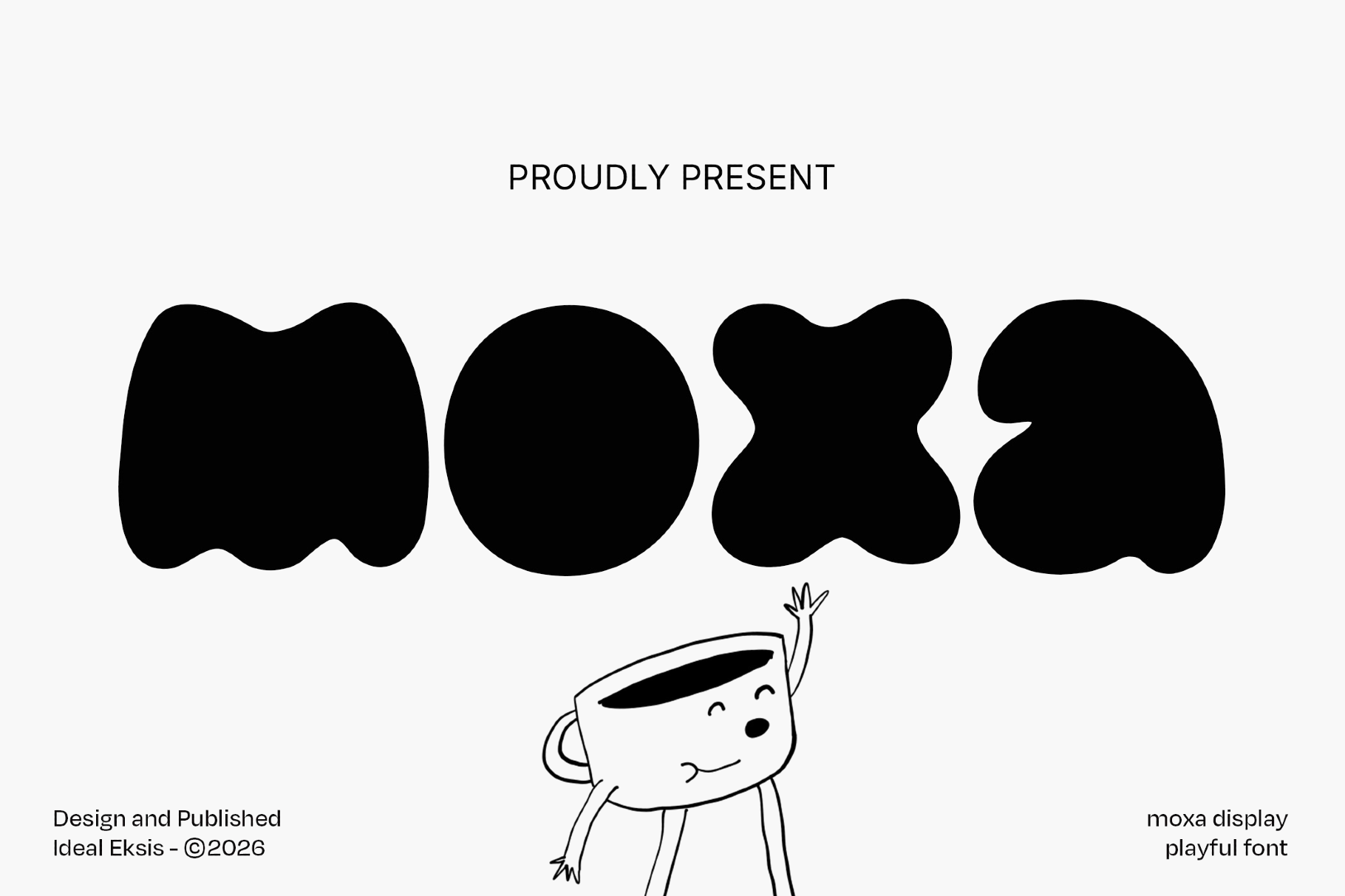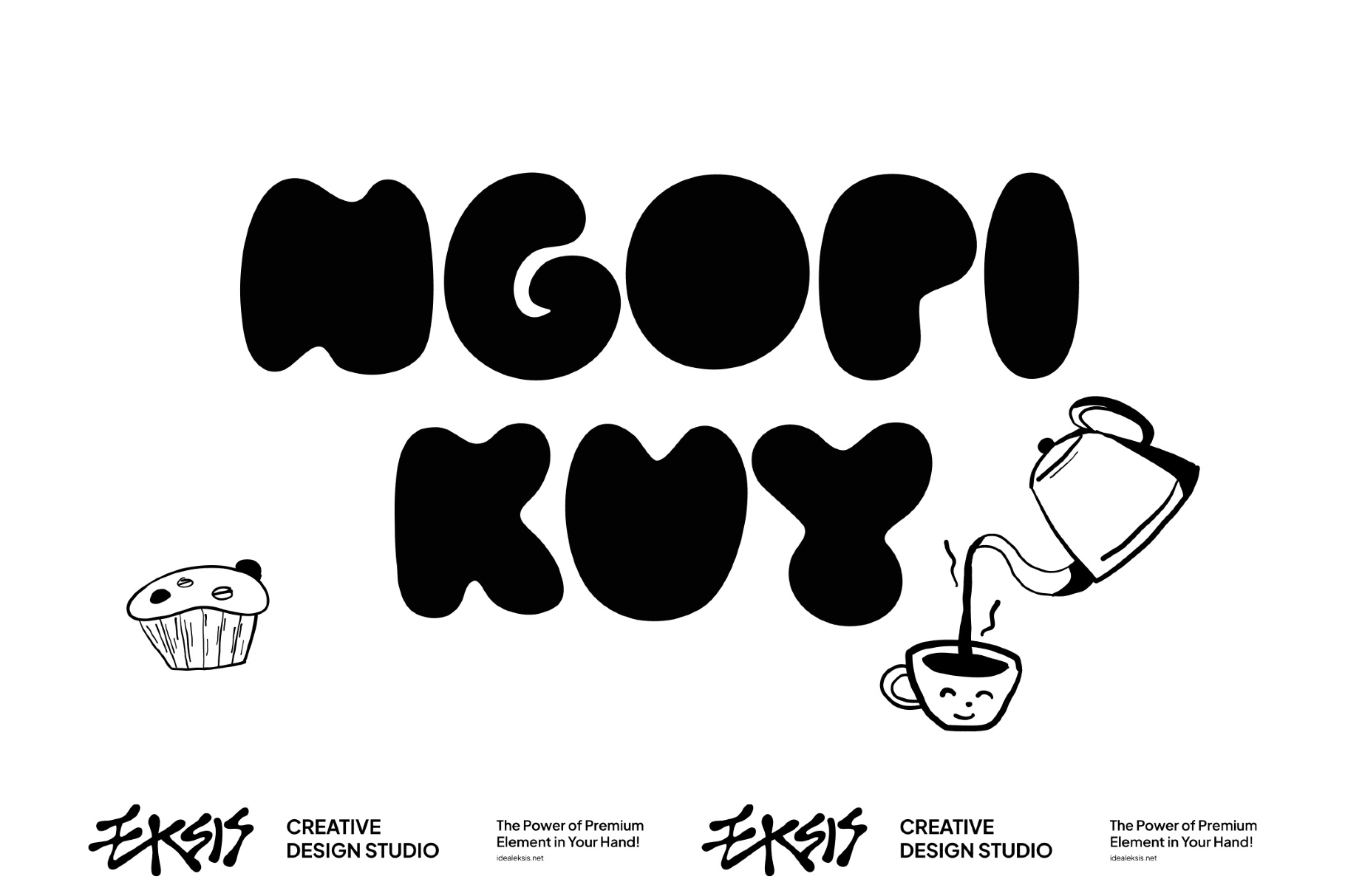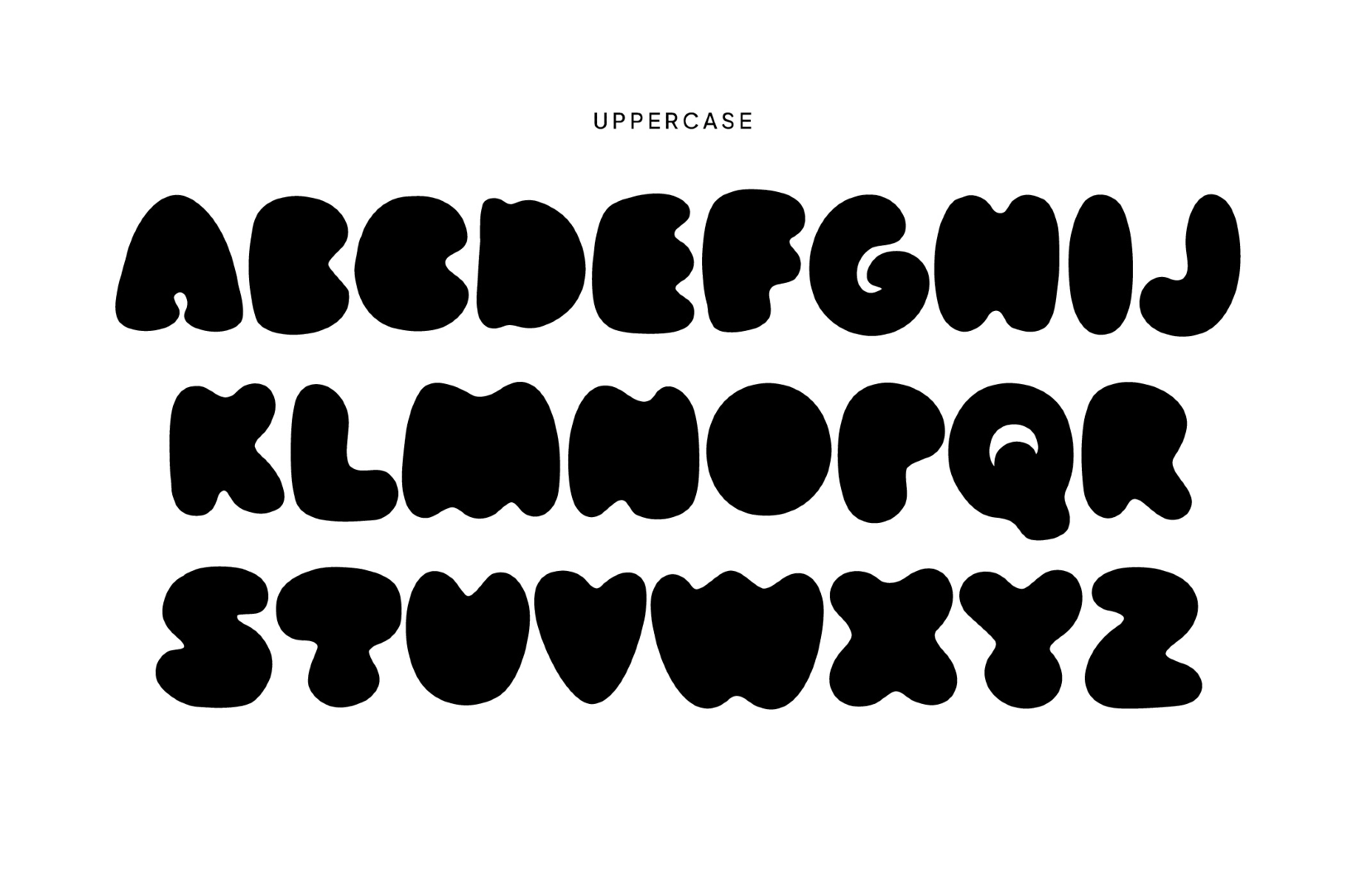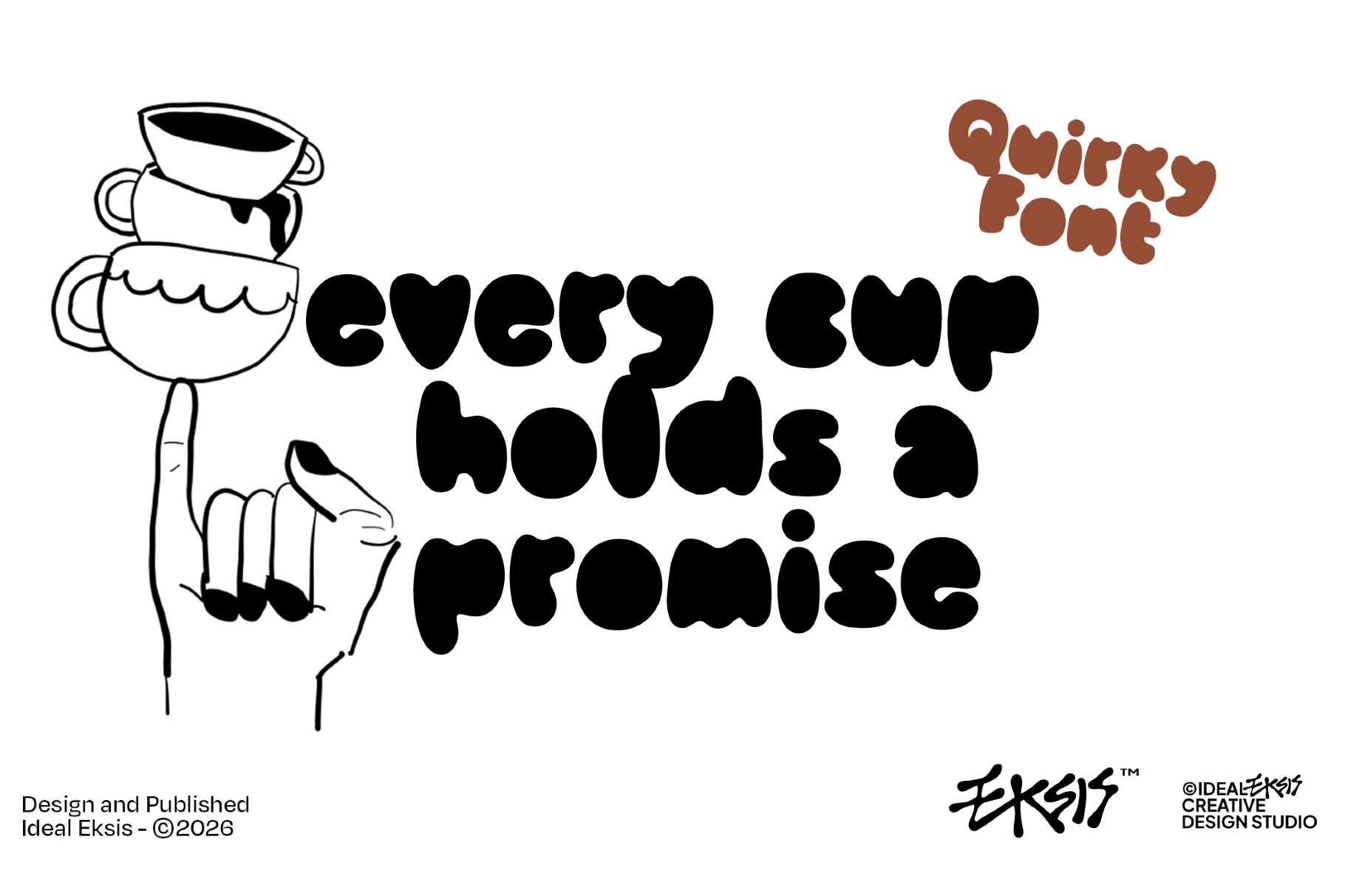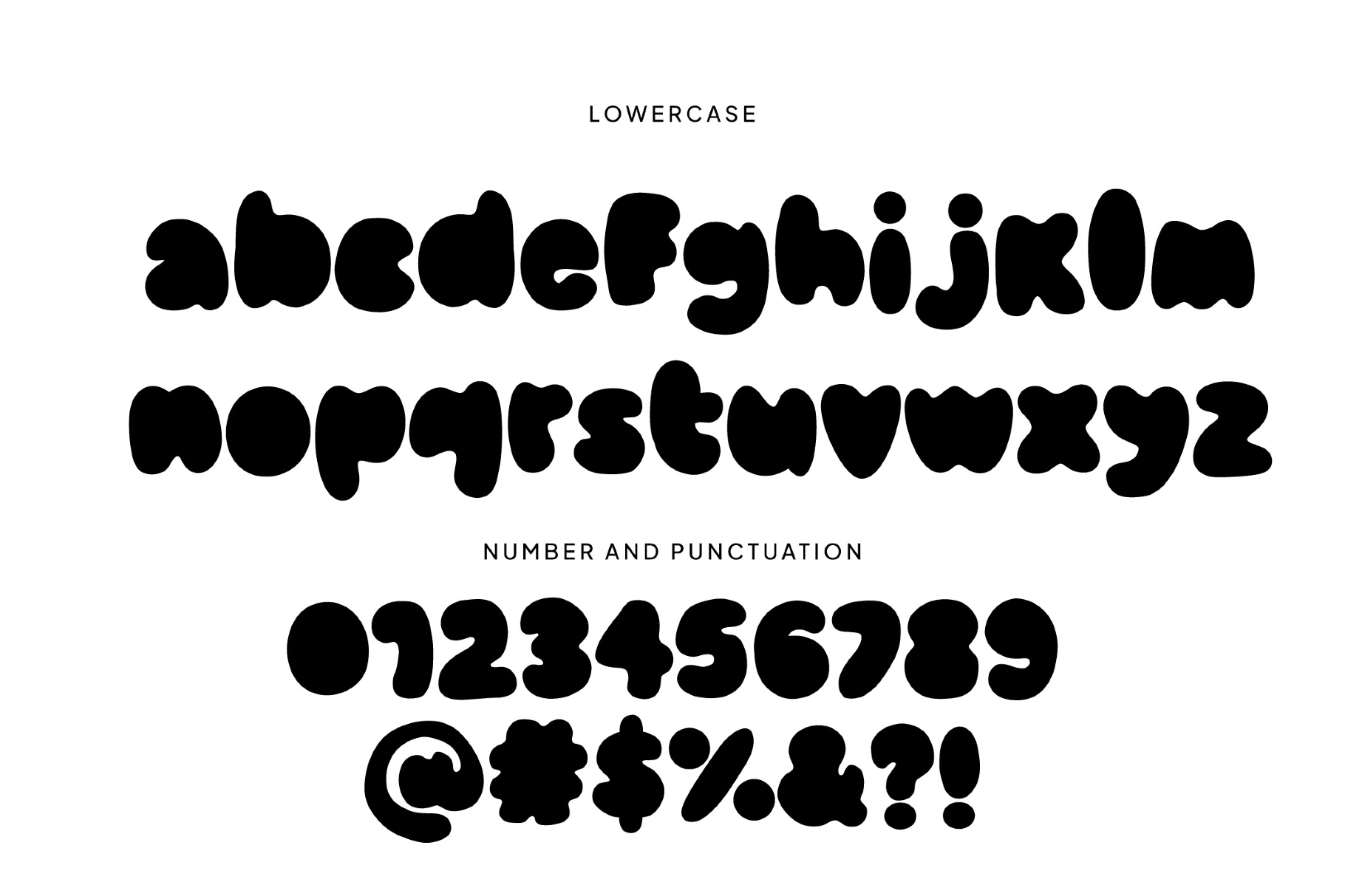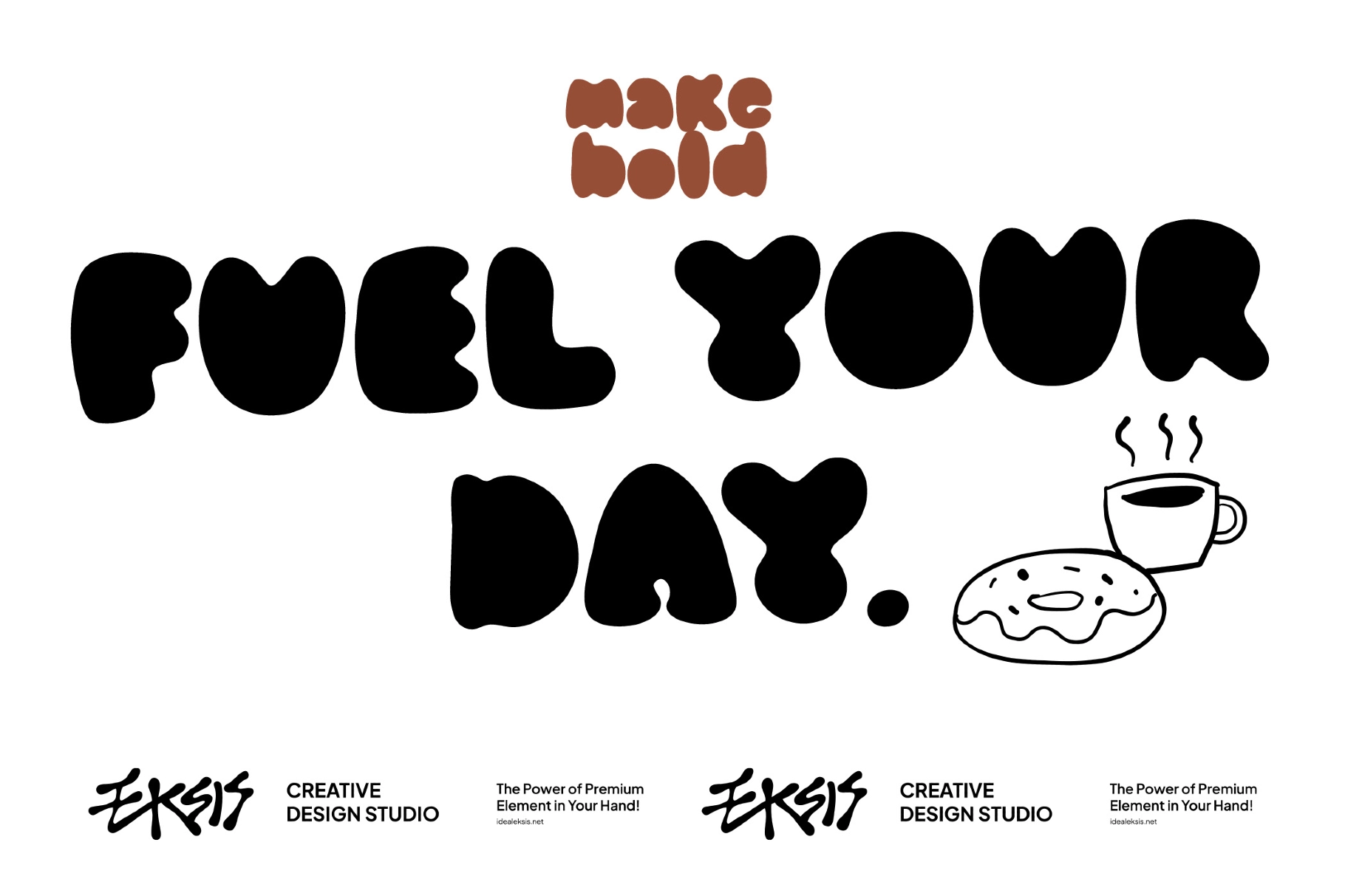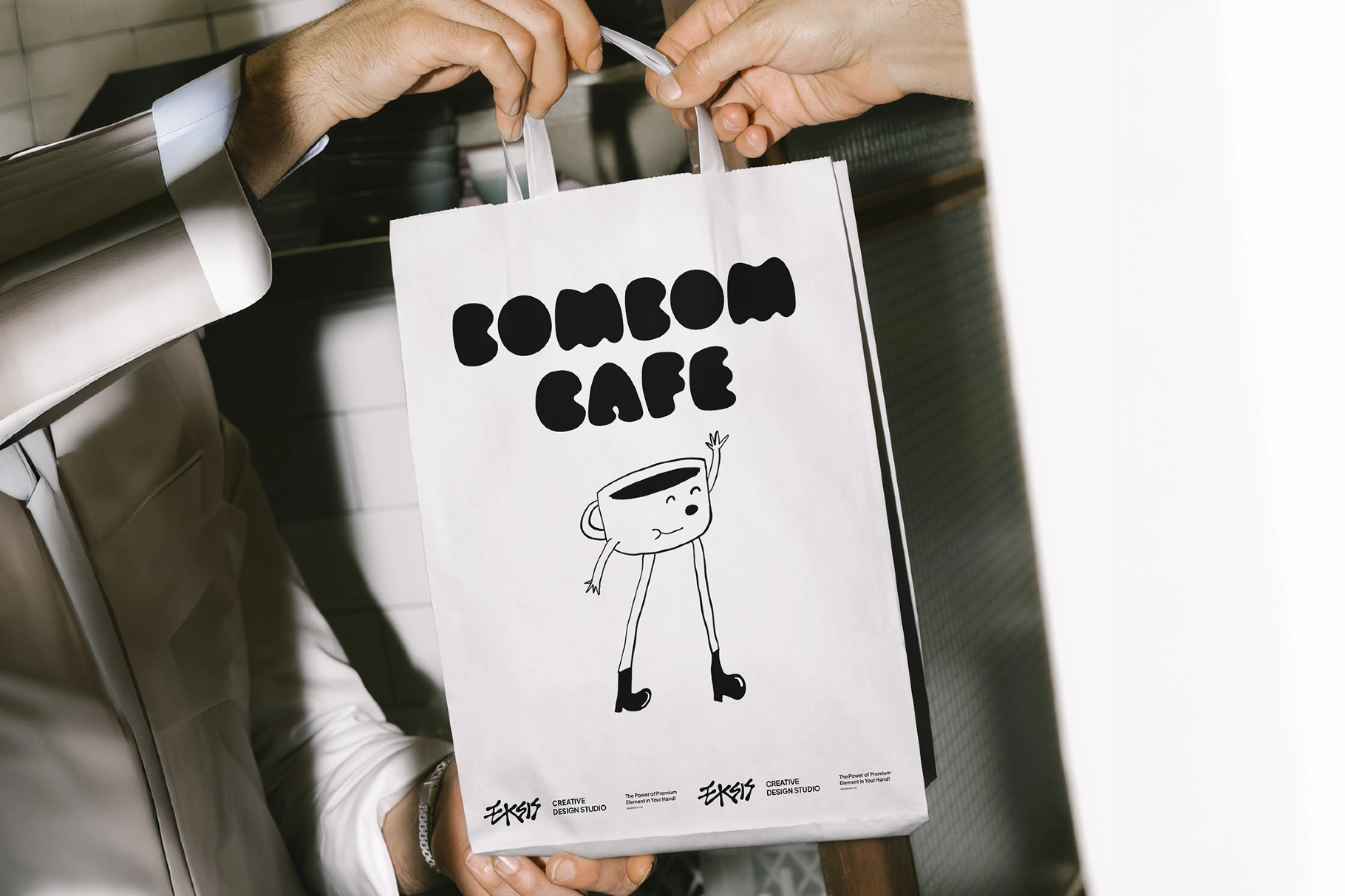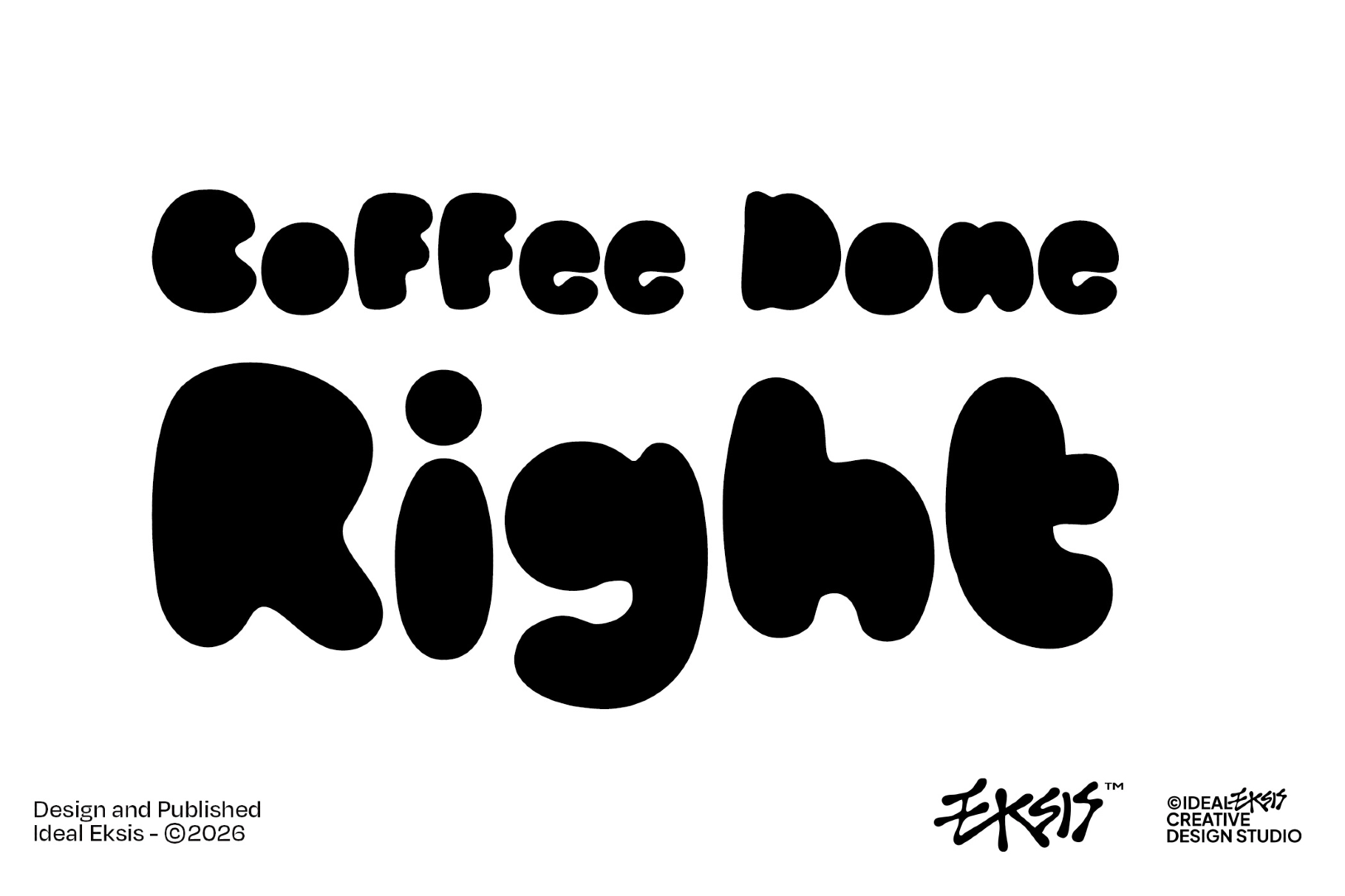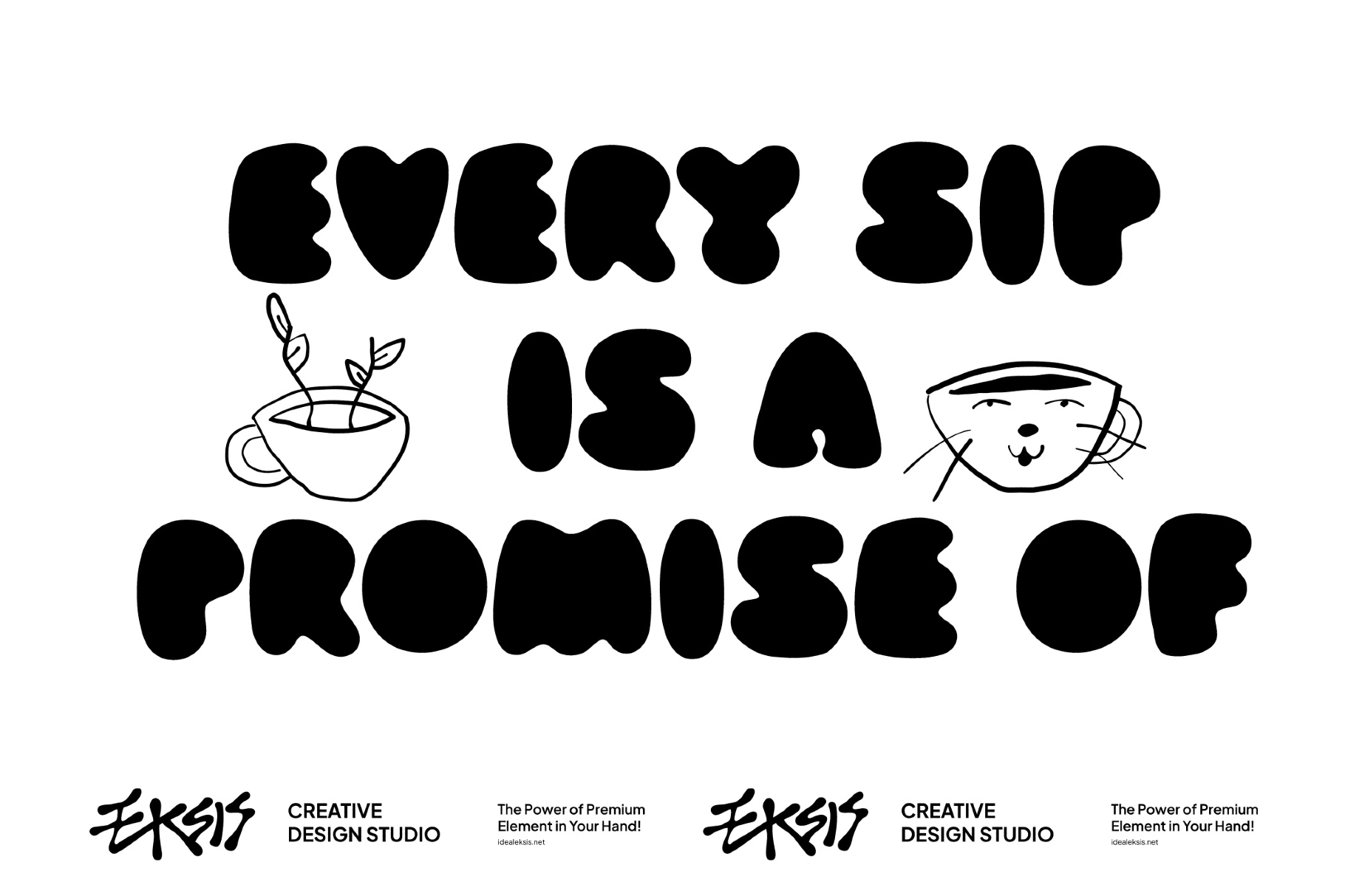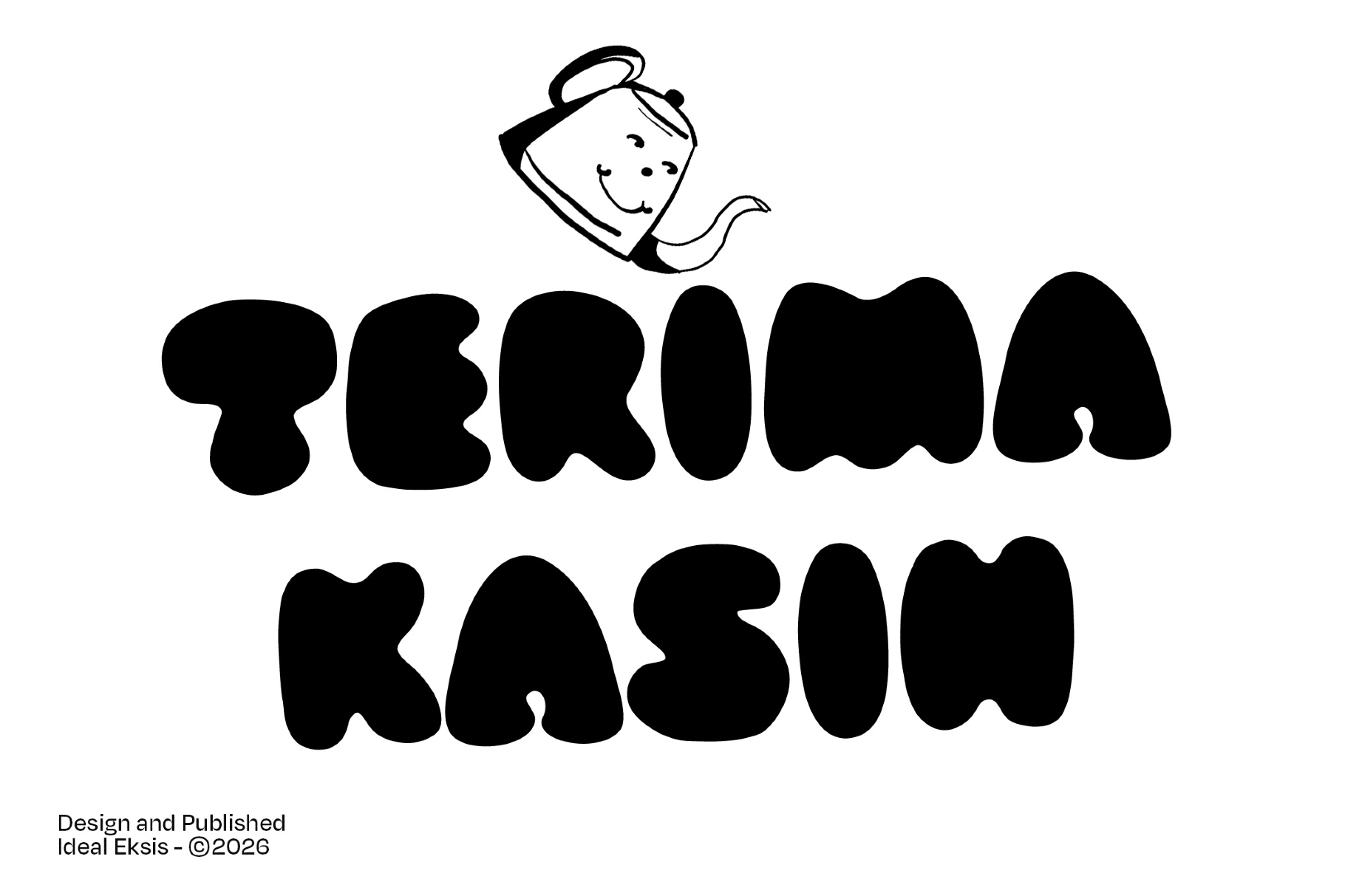
Moxa - Playful Bubble Display Font
Moxa is a bubble display font where every glyph prioritises silhouette over structure — counters inflated until they disappear, leaving organic blob forms with no sharp angles anywhere in the set. The o reads as a near-perfect circle; m, x, and w use fluid pinch-and-swell strokes that create volume and weight pressing outward from inside. The rhythm is steady enough to stay legible at headline scale while keeping the character unmistakably round — closer to 70s groovy lettering and sticker culture than to any grid-based grotesque.
Moxa goes loud in one colour at large sizes, and holds its shape equally well in embroidery, screen print, and cut vinyl. Use it for food and beverage brand identities, packaging, children's publishing, merchandise prints, event posters, social media graphics, and any project that needs an expansive, good-natured presence.